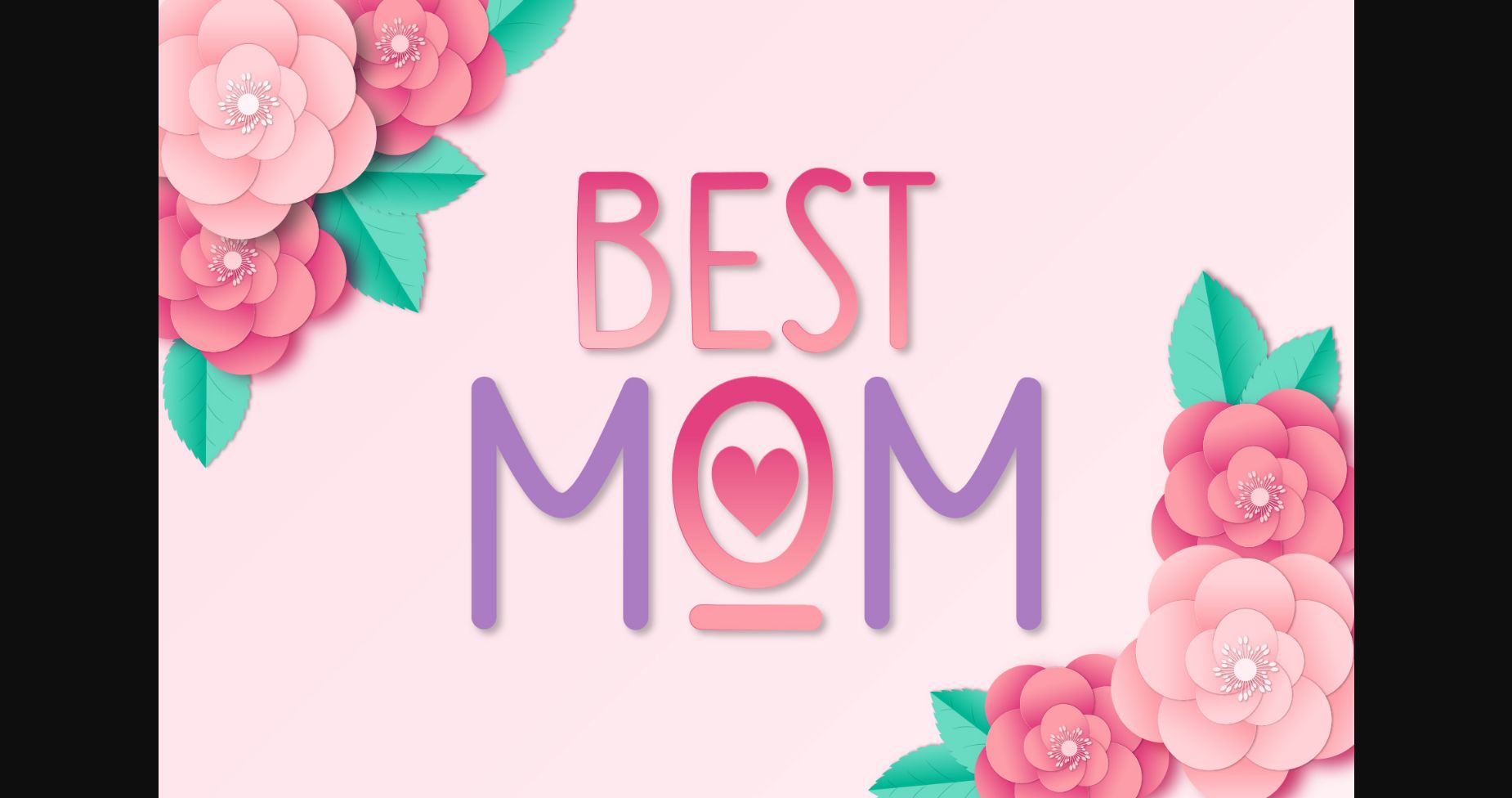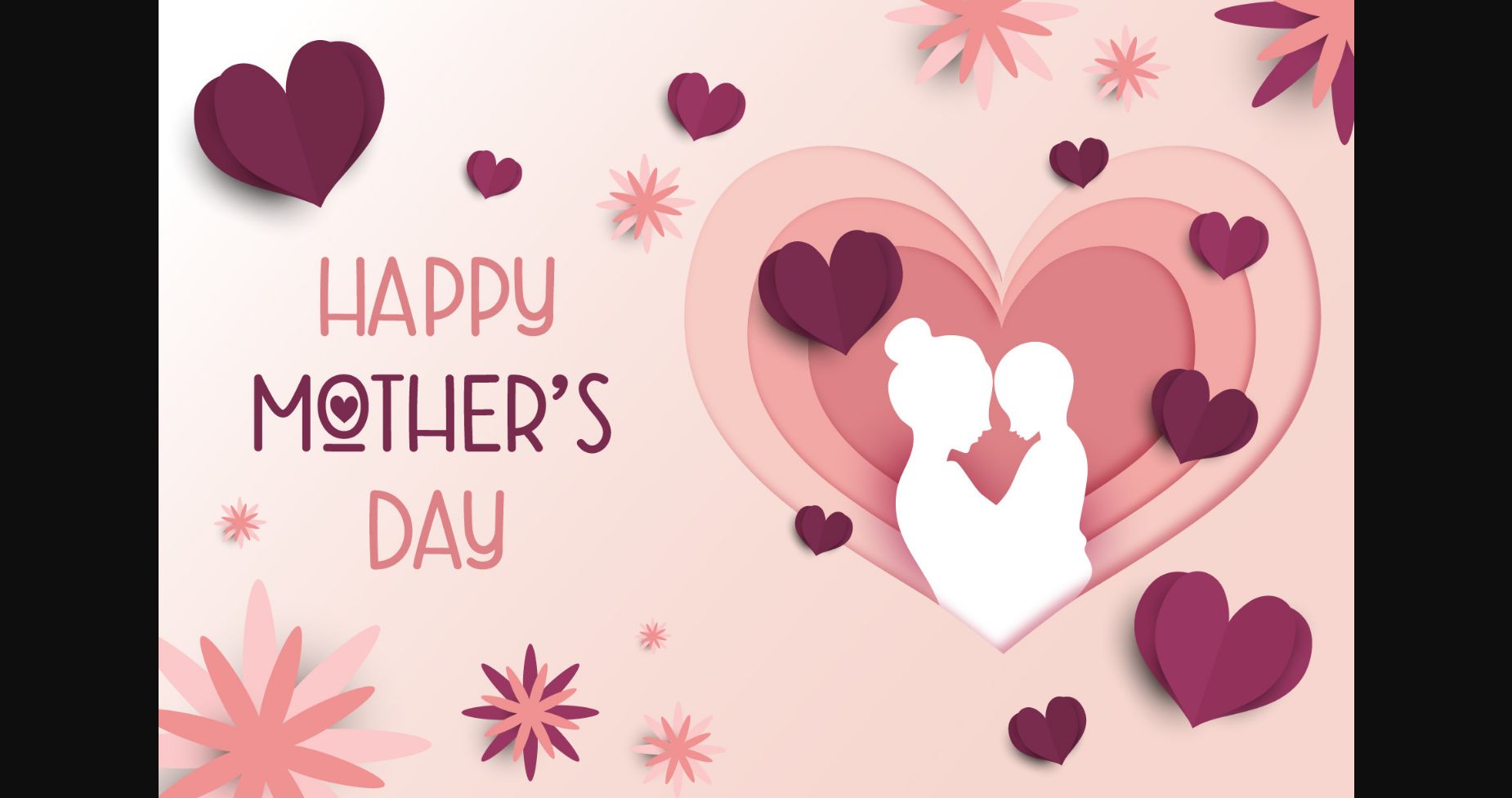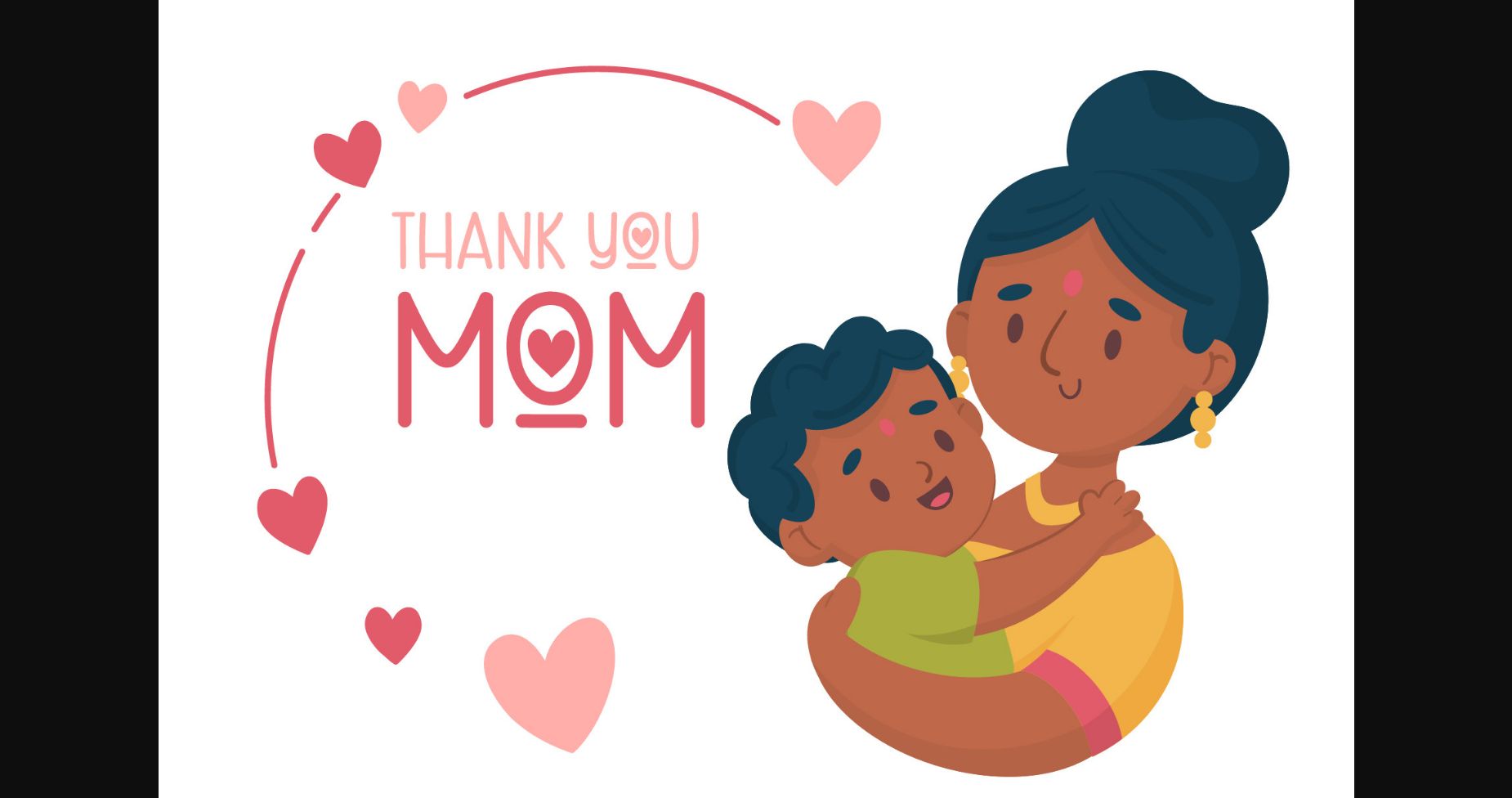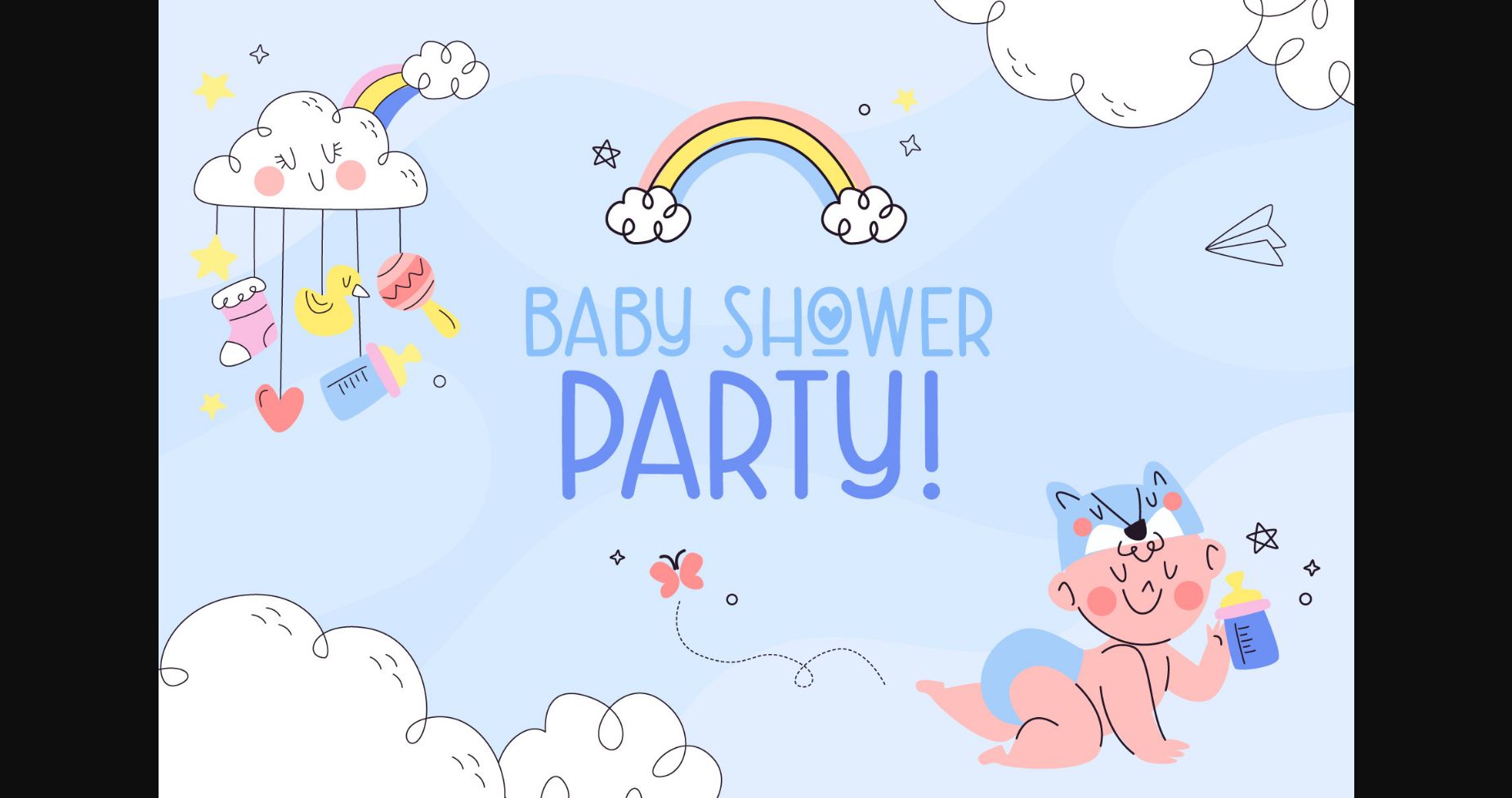
About Best Mom Font
Best Mom it’s a handwritten Sans Serif font that’s cute, clean, and simple. It is ideal for mother’s day cards, weddings, brand names, wall hangings, romantic movie titles, Valentines, or Christmas greetings. It is perfect for children-themed designs, especially when combined with bright colors.